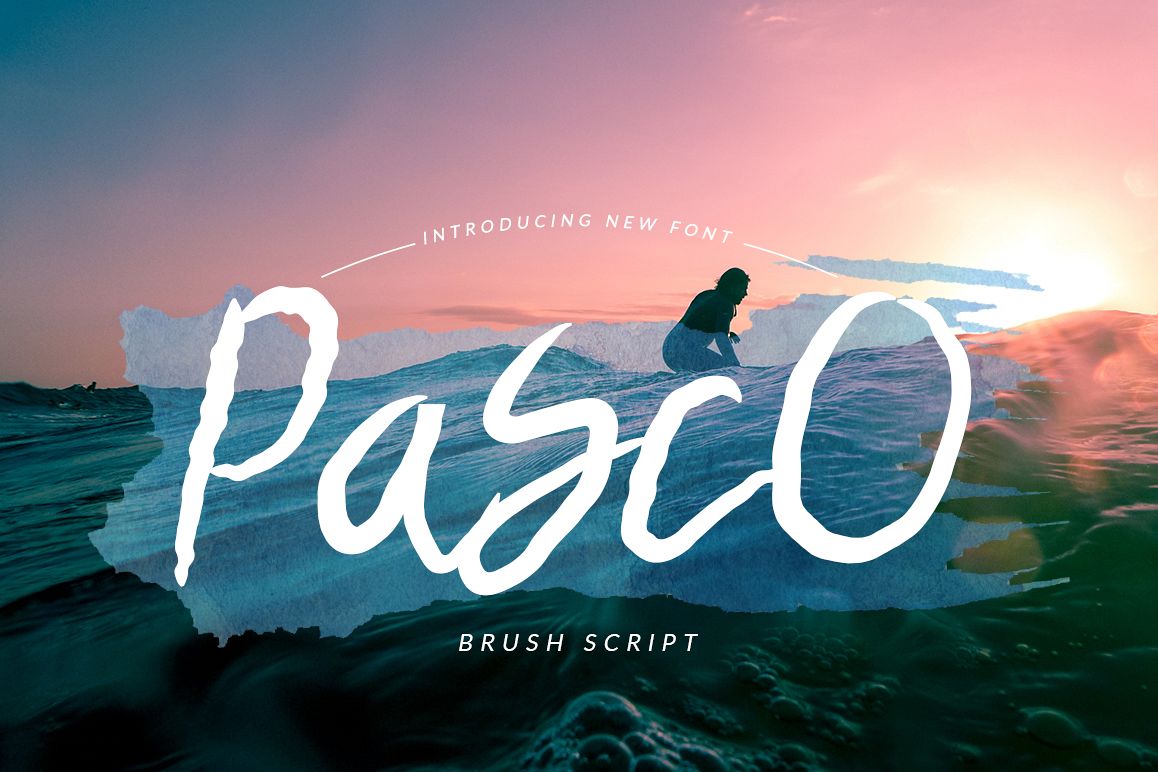
Pasco Font
Pasco
Introducing: Pasco Font is new handwritten font brush, Pasco font includes a full set of capital and lowercase letters, Pasco is perfect for your next project.Can be used for various purposes.such as logos, wedding invitation, apparel design, greeting cards, signage, labels, headers, printed quotes, posters, badges etc.
• Uppercase & lowercase
• Punctuation & numerals